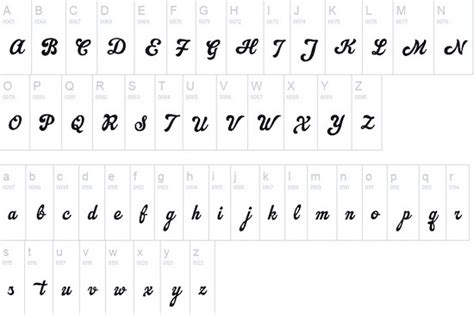
Get The Iila Dodgers Font For Free!
Get the Iila Dodgers Font for Free!
Hey guys! Are you a die-hard Los Angeles Dodgers fan looking to add some serious style to your projects? Maybe you’re working on a poster, designing a website, or just want to rep your favorite team in a unique way. Well, you’re in luck! This article is all about how you can get your hands on the Iila Dodgers font for free! We’ll dive into what makes this font so cool, where you can find it, and how to use it to create some awesome designs. So, grab your mitt and let’s get started!
Why the Iila Dodgers Font is a Home Run
First things first, why is the Iila Dodgers font so special? Well, it’s more than just letters on a screen, my friends. It’s a symbol of the Dodgers’ rich history, their iconic brand, and the passion of their fans. This font is often used in official team merchandise, on the scoreboard, and in various marketing materials, making it instantly recognizable to any Dodgers enthusiast. When you use the Iila Dodgers font, you’re not just typing; you’re connecting with a legacy.
The font itself is designed to capture the essence of the team. It typically features bold, clean lines, and a classic look that’s both modern and timeless. It’s perfect for creating designs that are both eye-catching and easy to read. Whether you’re designing a flyer for a game-day event, creating social media graphics to celebrate a victory, or just making a personalized banner for your home, the Iila Dodgers font will add that touch of authenticity and team spirit that you’re looking for. It’s a fantastic way to show off your love for the Dodgers and make your creations stand out from the crowd. Plus, using the right font can significantly enhance your designs’ overall look and feel, making them more professional and appealing. So, if you want to make your projects truly shine with Dodgers pride, the Iila Dodgers font is a must-have.
Furthermore, the font allows you to embrace your creativity with style. It is not just about the specific font style that has been used; rather, it is about how you use it to show your support for the team. You can use it in different designs to showcase your favorite players, highlight important team events, or just make your project look related to the team. By downloading the font, you are embracing an active role in showing team spirit in your project. You are not only supporting your team but are also making creative designs to express your fandom to others. It is one of the coolest and most exciting ways to support your team. Getting the Iila Dodgers font allows you to explore the creative possibilities. Once you’ve downloaded it, you can experiment with different colors, sizes, and styles to see what works best for your design. This gives you complete control over your project’s visual appeal, allowing you to create something that perfectly reflects your personal taste and your passion for the Dodgers.
Finally, the Iila Dodgers font helps you stay connected with your team and fellow fans. It’s a conversation starter, a symbol of belonging. When others see your design using the Dodgers font, they immediately know you share the same passion. It’s a great way to meet fellow fans, share ideas, and create a sense of community. So, whether you’re a seasoned graphic designer or a beginner, the Iila Dodgers font is a valuable tool that can enhance your designs and deepen your connection to the team. It is more than just a font; it is a symbol of community, pride, and the unwavering spirit of the Los Angeles Dodgers. So, get ready to add that championship touch to your designs with the Iila Dodgers font!
3. Search Engines: A simple search engine query can sometimes uncover the font files. However, be cautious when downloading from unknown websites. Look for sites that offer secure downloads and check for user reviews or ratings to ensure the site’s legitimacy. Always be careful to scan the files after downloading them to be sure there are no security threats.
Important Note: Always prioritize websites you trust and check for the correct file format (usually .ttf or .otf) for use on your computer. Before you download, be sure to confirm the font license, making sure that it is free to use for your needs. Double-check everything, especially if you plan to use the font for commercial work.
Conclusion: Show Your Dodgers Pride
There you have it, guys! Getting the Iila Dodgers font for free is totally doable, and it opens up a world of design possibilities. Remember to always respect the licensing terms, have fun creating, and most importantly, show your Dodgers pride ! Whether you’re a seasoned designer or just starting out, this font is a fantastic way to add that extra touch of team spirit to your projects. So, go forth, download that font, and start creating some amazing designs that will make even the most die-hard Dodgers fan proud. Go Dodgers!